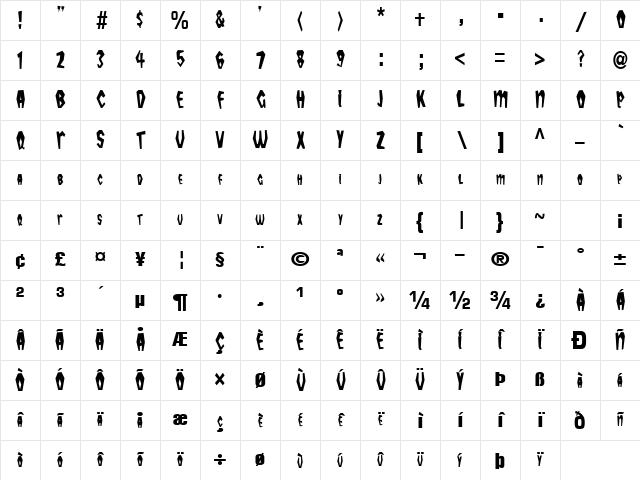
NewsMessenger120 Regular Free Font
Complete NewsMessenger120 Regular glyph index. Displaying only characters natively supported by NewsMessenger120 Regular font.
Design Context for NewsMessenger120
NewsMessenger120 is a composed and adaptable typeface that performs quietly and consistently across a wide range of design contexts.